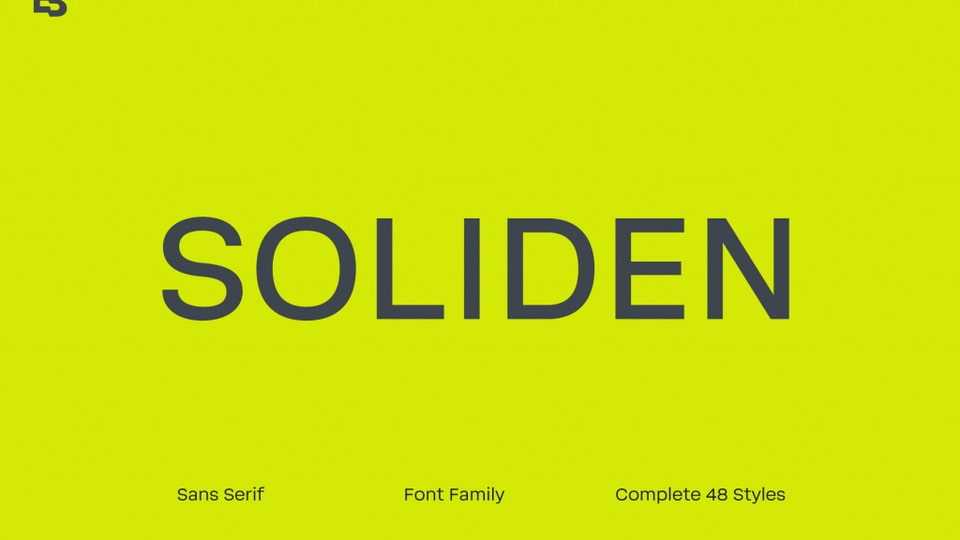
Download Soliden font, a neo grotesk sans serif typeface with a solid letterforms. Soliden became a suitable choice for large display and functional purposes.